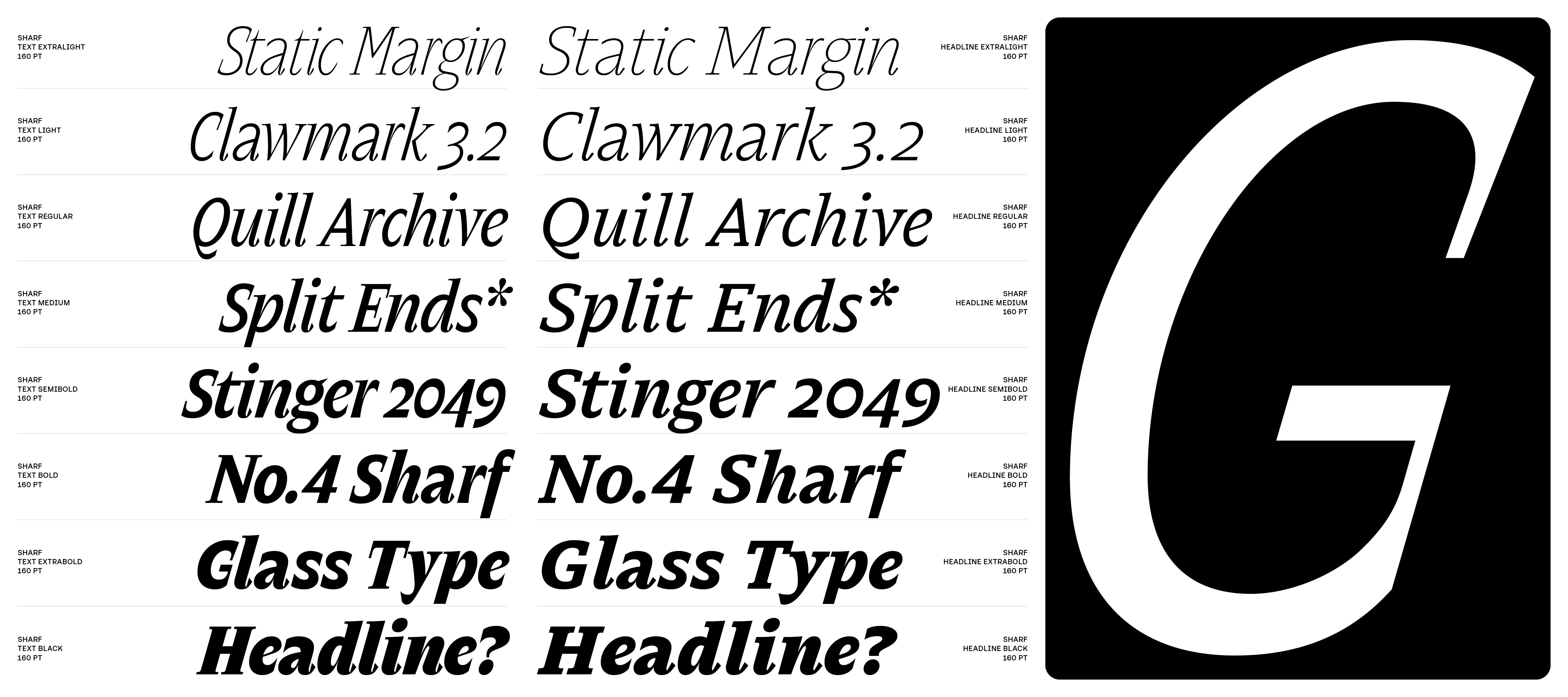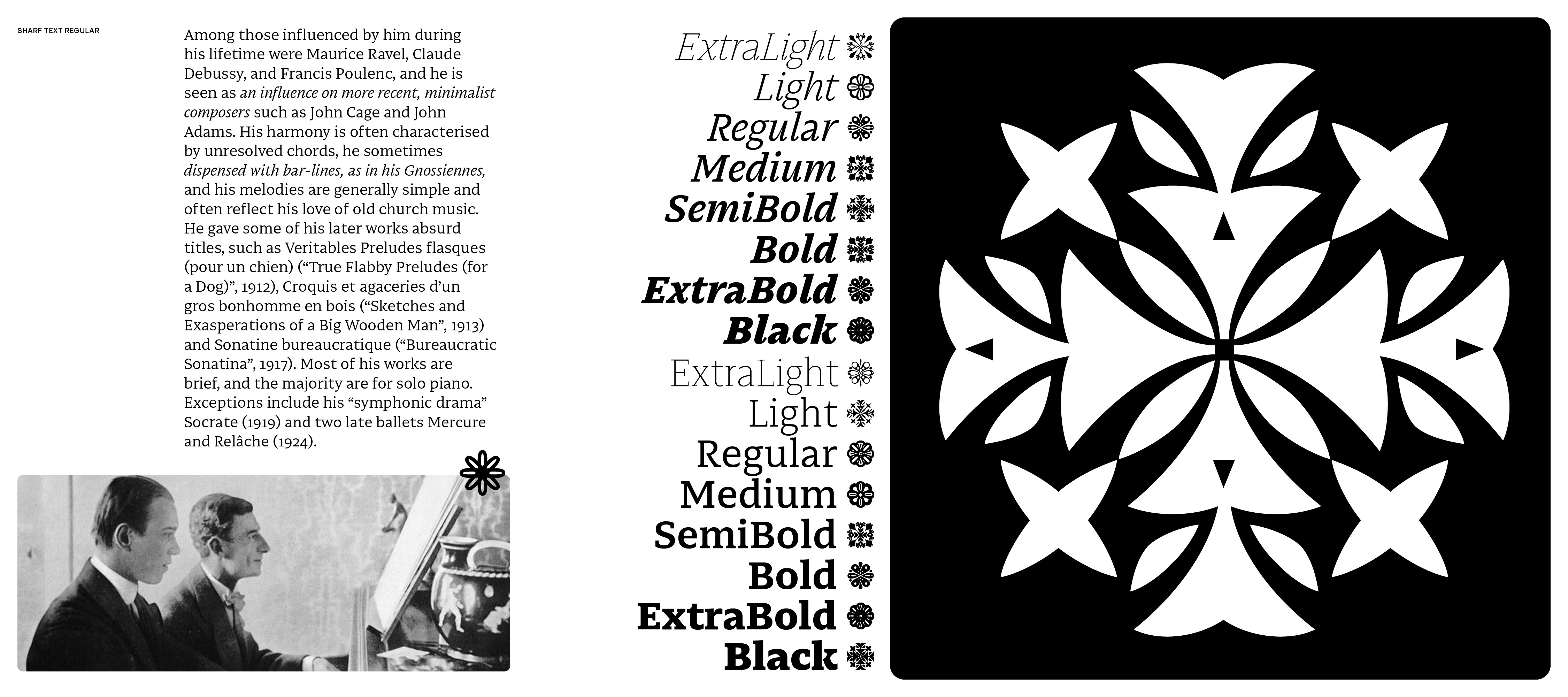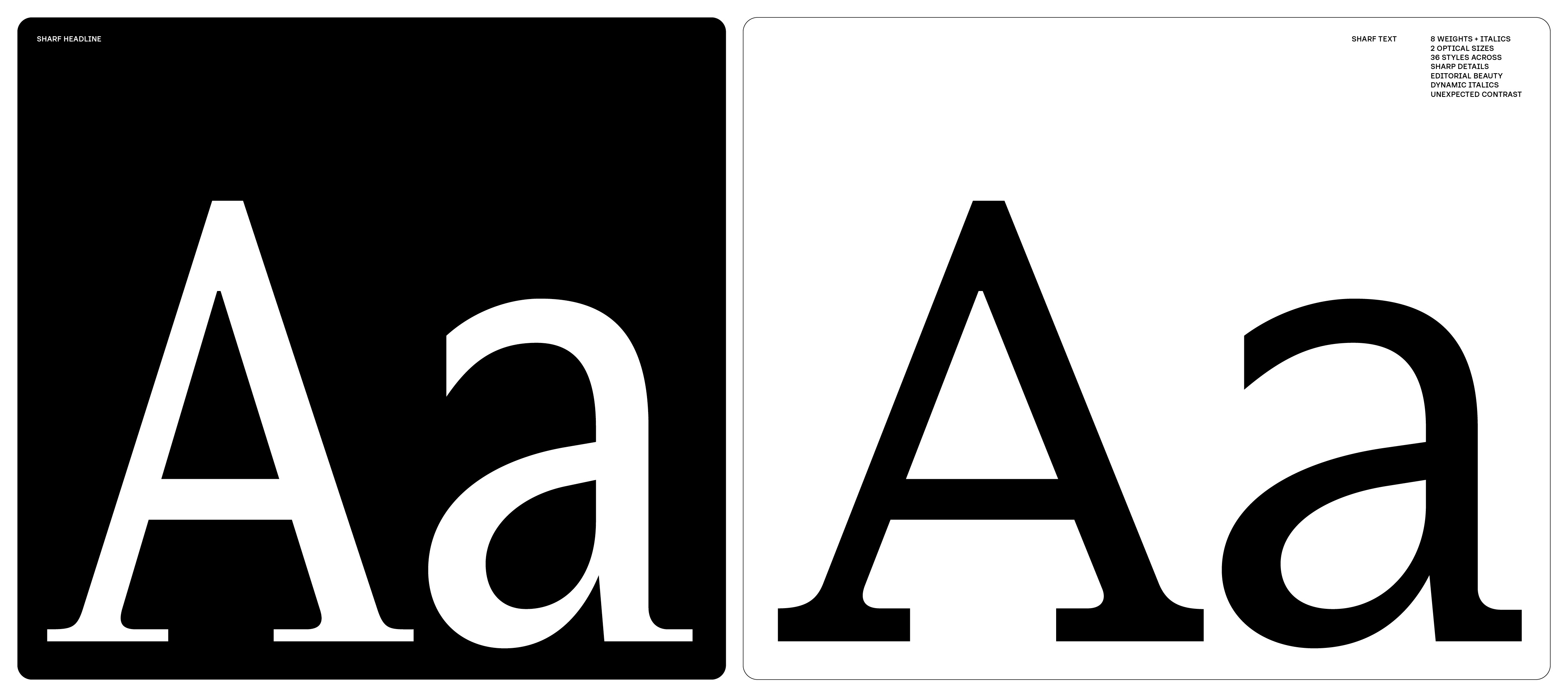
Styles:
34
Category:
serif
Tone:
weird
Use size:
large, medium, small
Width:
narrow, normal
Weight:
light, regular, medium, bold
Contrast:
high, medium
Other:
variable, italic
About the typeface
Sharf is an editorial type family with an experimental touch and unpredictable contrast changes between text and headline styles. Text styles are rather calm and conventional with elegant character, whereas the headline styles surprise with their eccentricity.
Sharf marries many ideas that perhaps should not exist next to each other in any kind of harmony, but we believe that many different narrations, shapes, beings can co-exist at different extremes of the design spectrum; and what is in-between might be an interesting surprise.